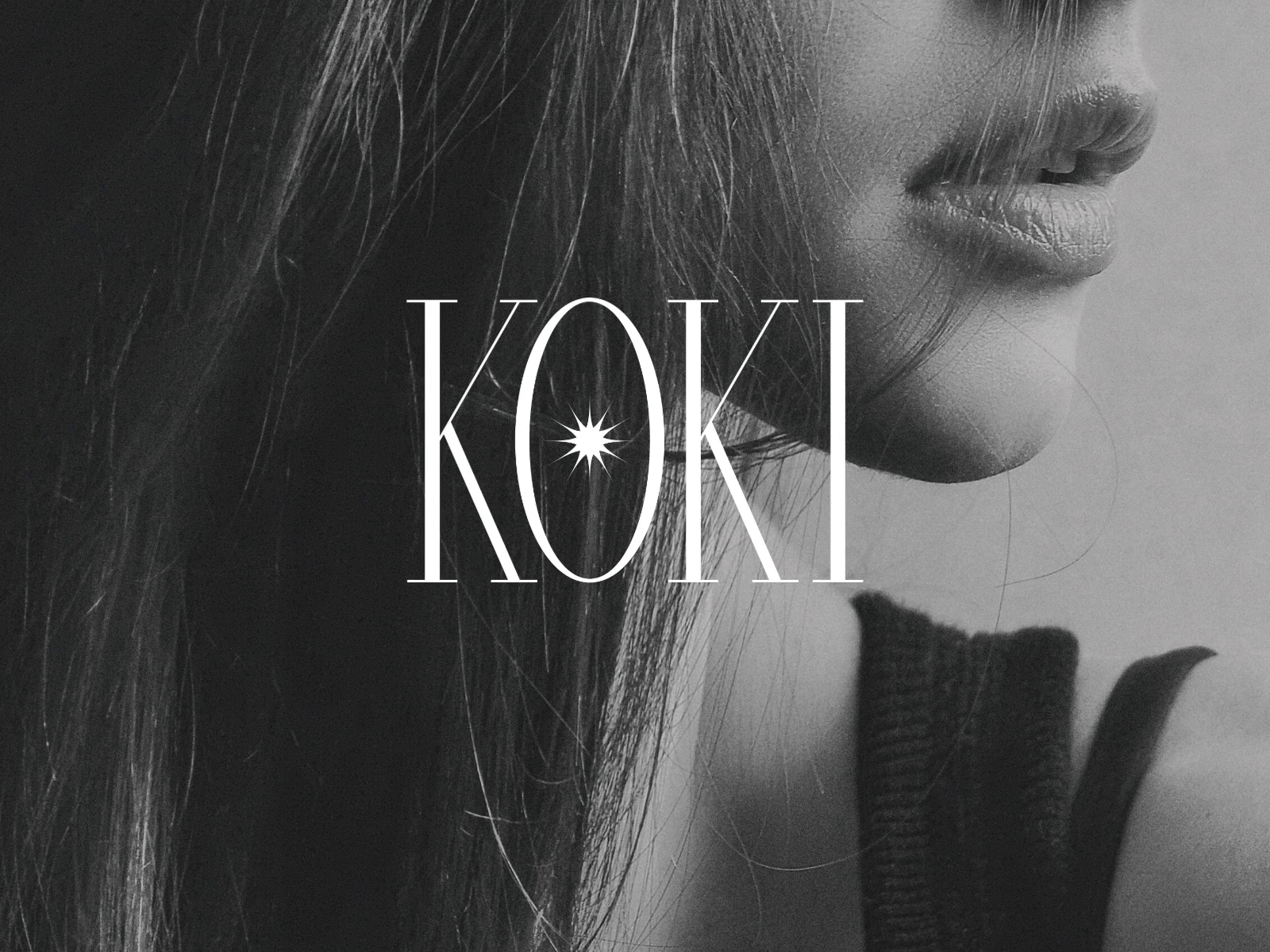
Typeface and Visual Identity design for fashion brand KOKI✨
Brand and Visual Identity design for an Emerging Fashion Brand.
While I was researching for the name I saw every fashion brand uses a unique typeface that belongs to them only. Like NIKE and Adidas and Versace or LV so, I proposed the idea to the team and I came forth to design the typeface. I was excited and confused In the beginning, It was my first time.
I started learning about typefaces and did a few terrible jobs in the beginning, the problem was, that we have to reflect the Idea of luxury while being elegant and fashionable, I did my research on Fancy typefaces, and watched a few documentaries. Designing a typeface that looks elegant and luxurious and simple at the same time was tricky but, I had fun! I love typefaces and almost felt like I am creating history! It was tricky but I loved It!
The definition of LUXIVA typeface is Thin, Slab Serif type. The typeface looks perfect on all the applications, It's elegant and simple but fashionable. I did a few changes to the logo making It even thinner almost hairy thin to show the perfection and attention to detail. I made a little bold version for the Web app as well.